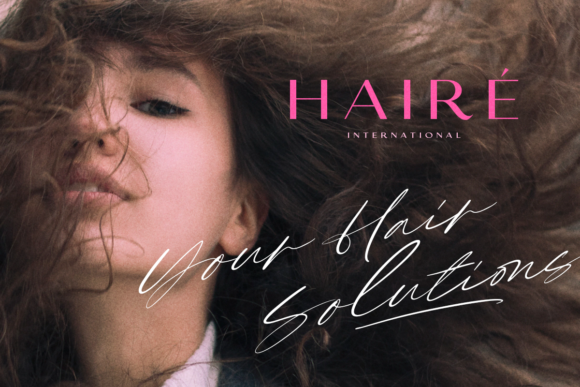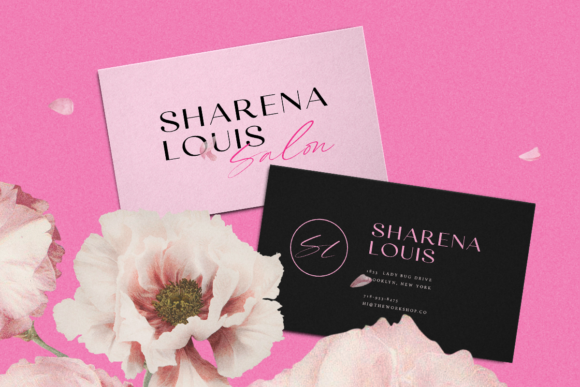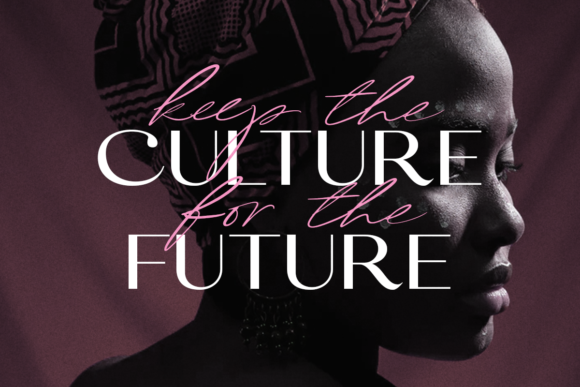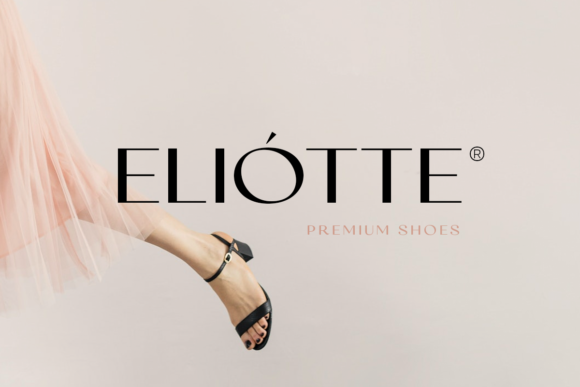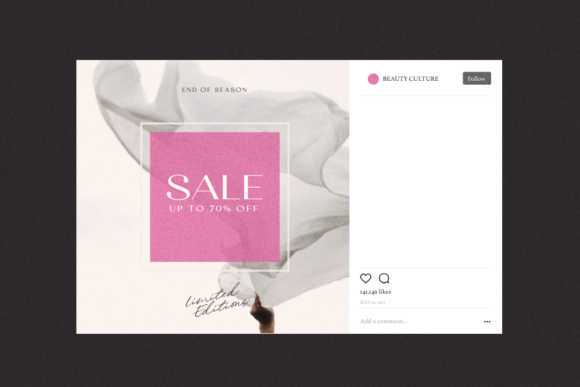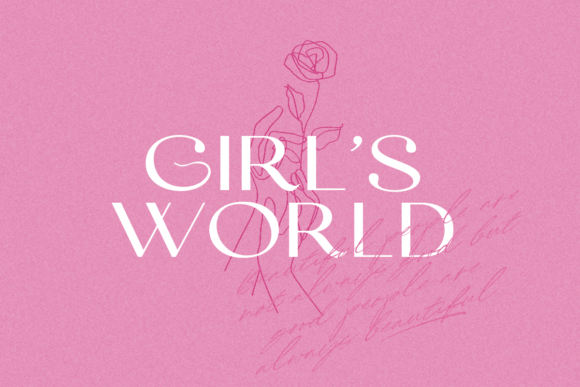
Introduction to Beauty Culture Font
Have you ever been working on a creative project, pouring your heart and soul into every detail, only to feel like something is missing? That’s when you stumble upon the perfect design resource, and everything falls into place. For designers, finding the right font can be the difference between a good project and a great one.
That’s where the Beauty Culture Font comes in – a stunning and comprehensive duo font that’s perfect for giving your projects a branded yet friendly feel. With its two included styles, you can combine them together for a unique look or use them separately to create a cohesive visual identity.
Whether you’re working on a free download or a high-quality commercial project, the Beauty Culture Font is a valuable asset for any designer. Its versatility and high-quality design make it a must-have for anyone looking to take their projects to the next level.
Key Features of Beauty Culture Font
- High-quality design resource perfect for creative projects, offering a unique and elegant touch.
- Includes a range of glyphs and characters, making it an ideal choice for designers working on beauty-related projects.
Honest Review: Beauty Culture Font
- Unique and elegant design that fits perfectly with beauty and fashion brands.
- High-quality and crisp font that’s ideal for print and digital projects.
- Limited language support, which may be a concern for international projects.
- No bold or italic versions available, which can be a limitation for certain design requirements.
Overall, I’m impressed with the Beauty Culture Font and would definitely recommend it for beauty and fashion-related design projects. Its unique design and high-quality feel make it a valuable addition to any design resource library.
Designing with Beauty Culture Font
The Beauty Culture Font is a versatile design resource perfect for any creative project. With its high-quality, elegant script, it’s ideal for fashion, beauty, and lifestyle branding. You can download it for free and use it in a variety of design applications.
Tips for Getting the Most Out of Beauty Culture Font
To get the most out of the Beauty Culture Font, use it consistently throughout your design. Pair it with other high-quality fonts to create a cohesive look. Also, experiment with different font sizes, colors, and styles to add visual interest to your design.
The Beauty Culture Font is perfect for fashion, beauty, and lifestyle branding. Use it to create beautiful graphics, overlays, and text layers for social media, advertising, and marketing materials. You can also use it to create beautiful presentations, documents, and websites.